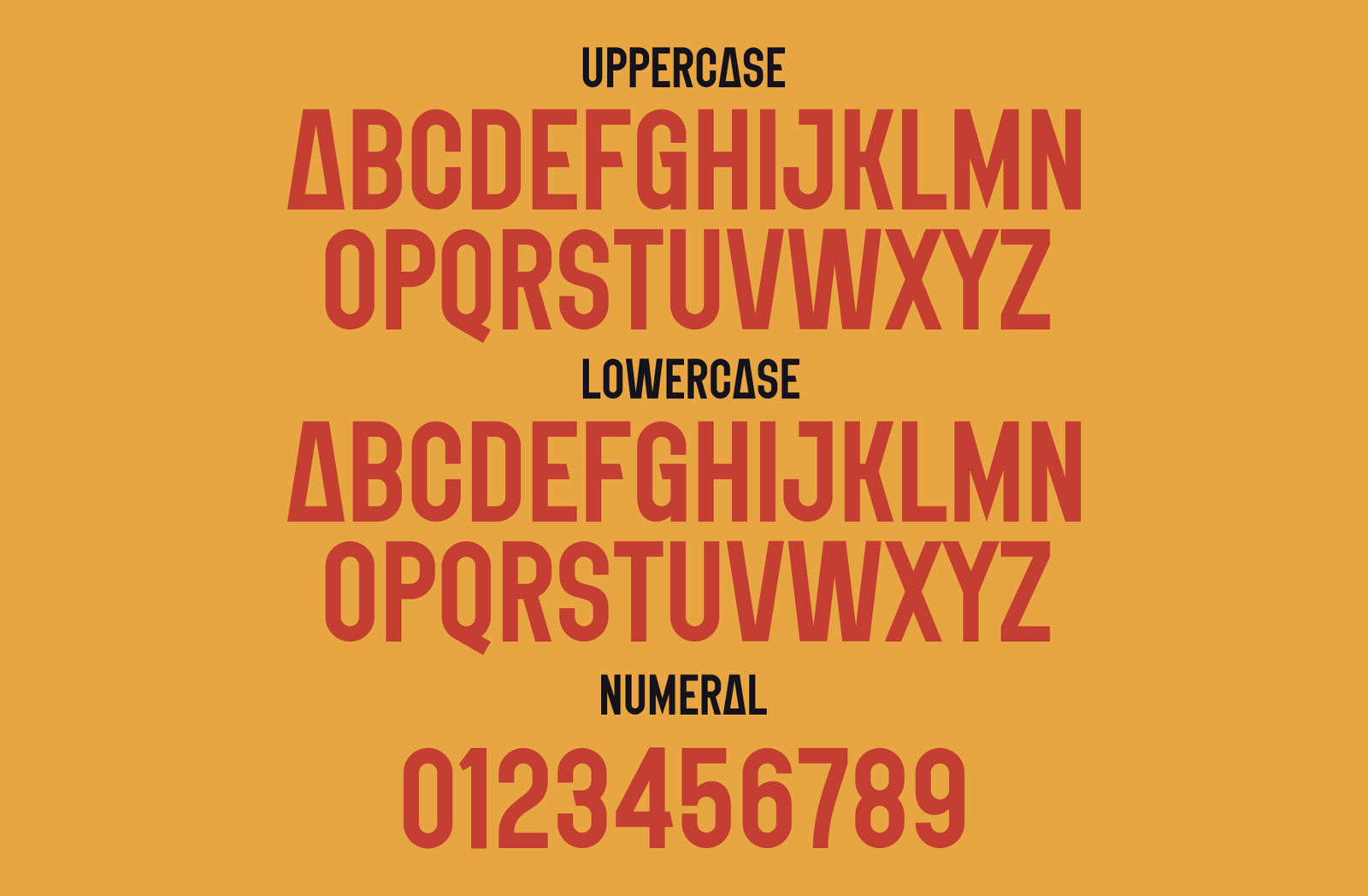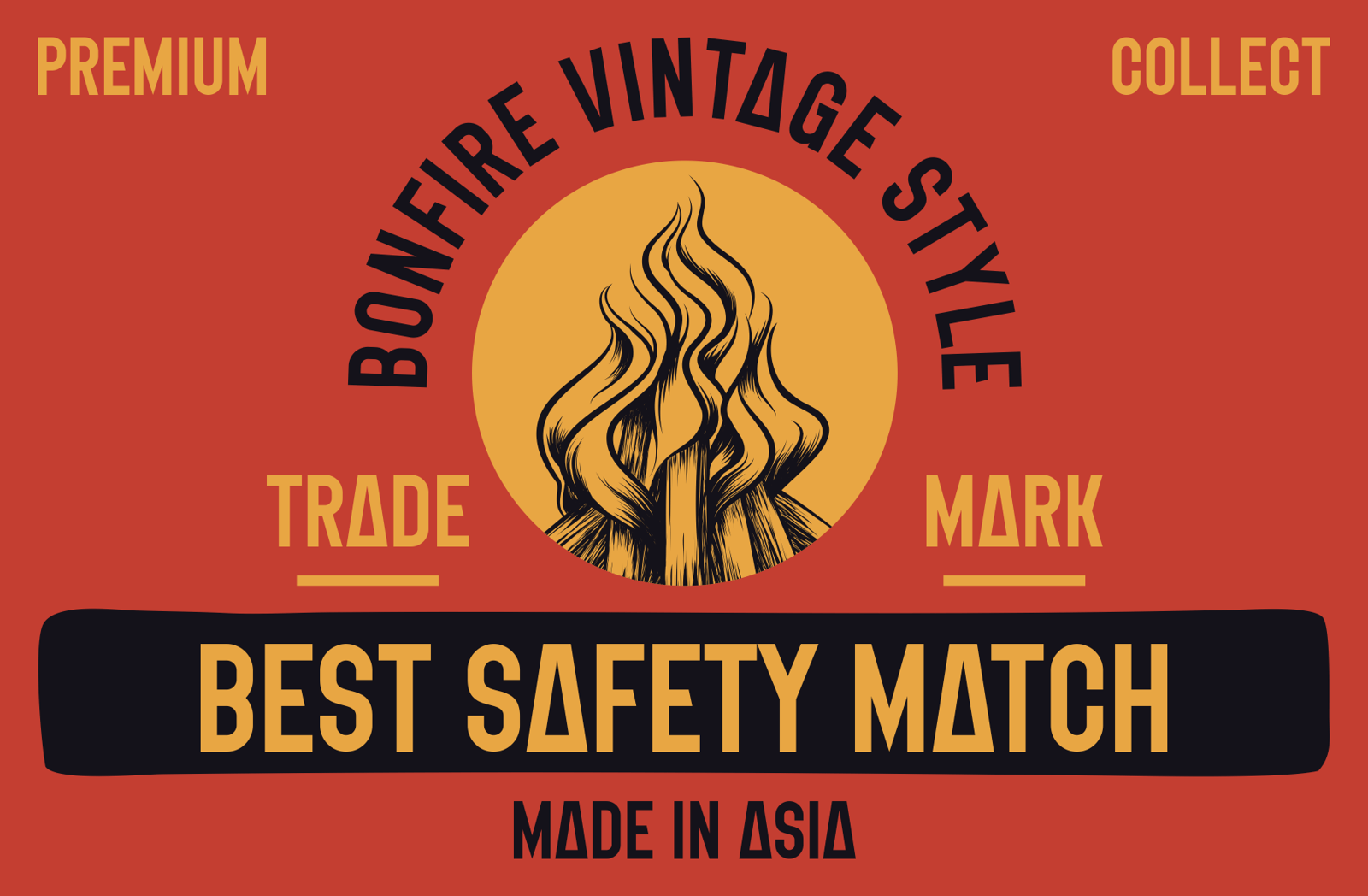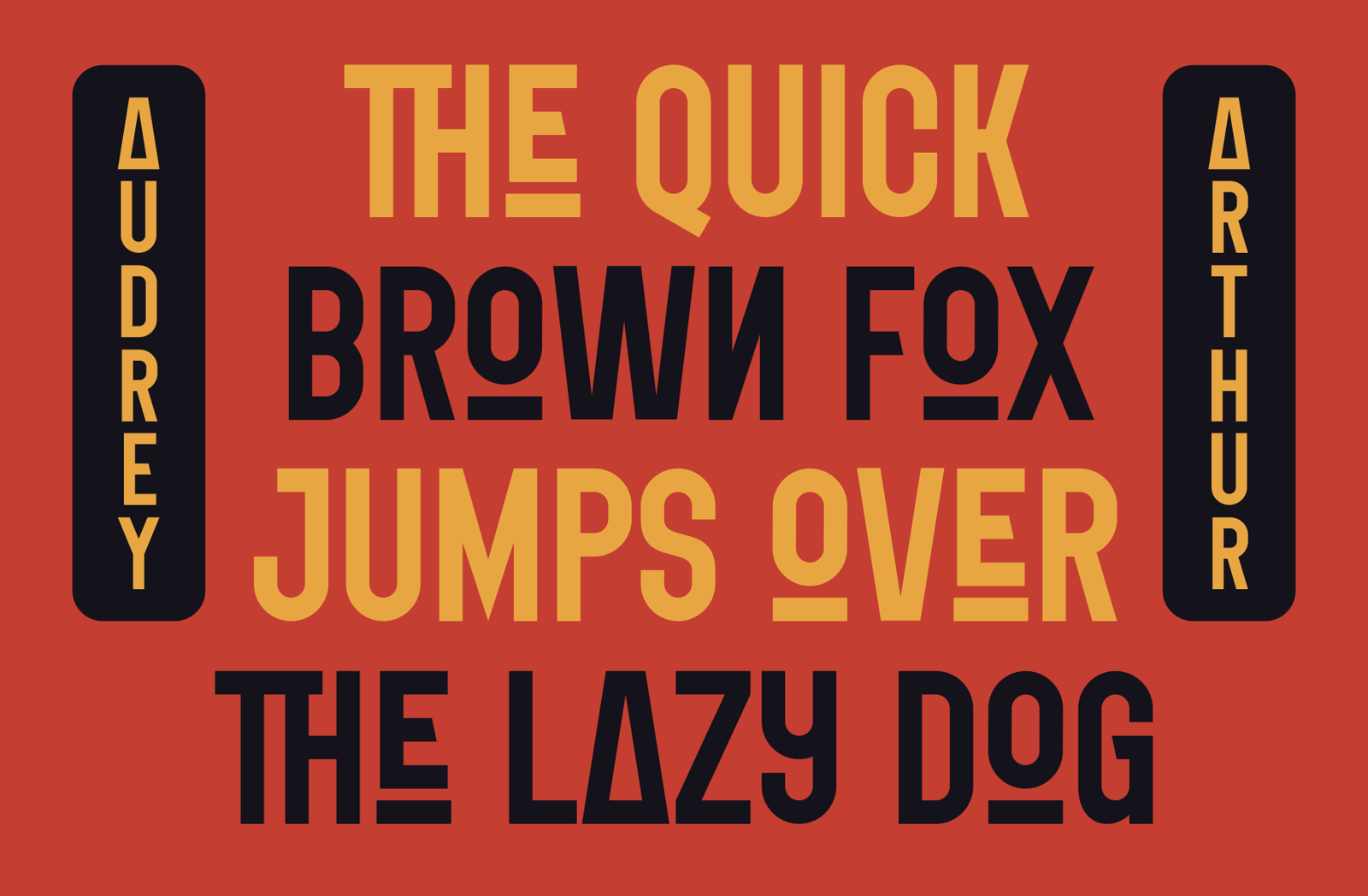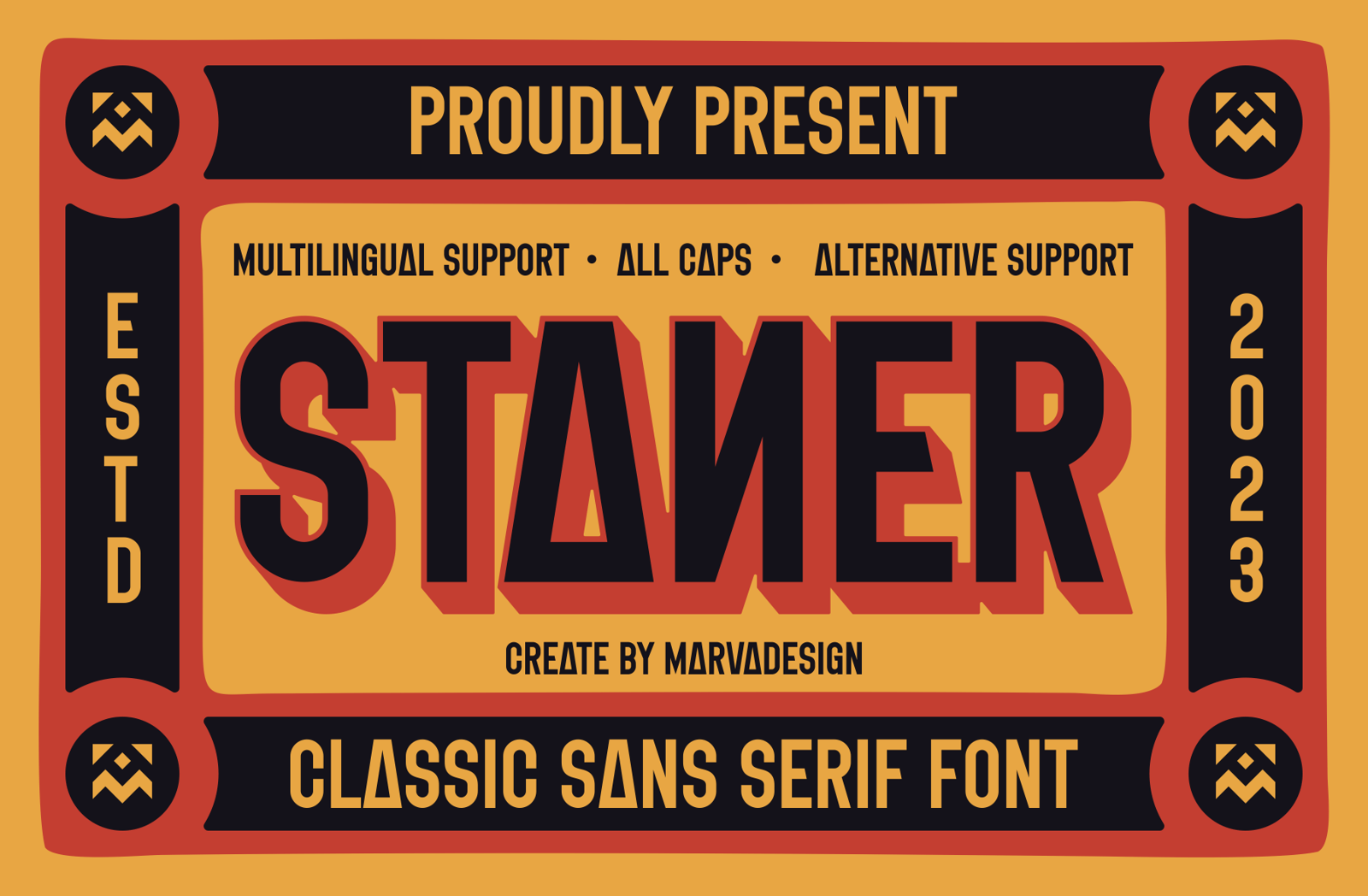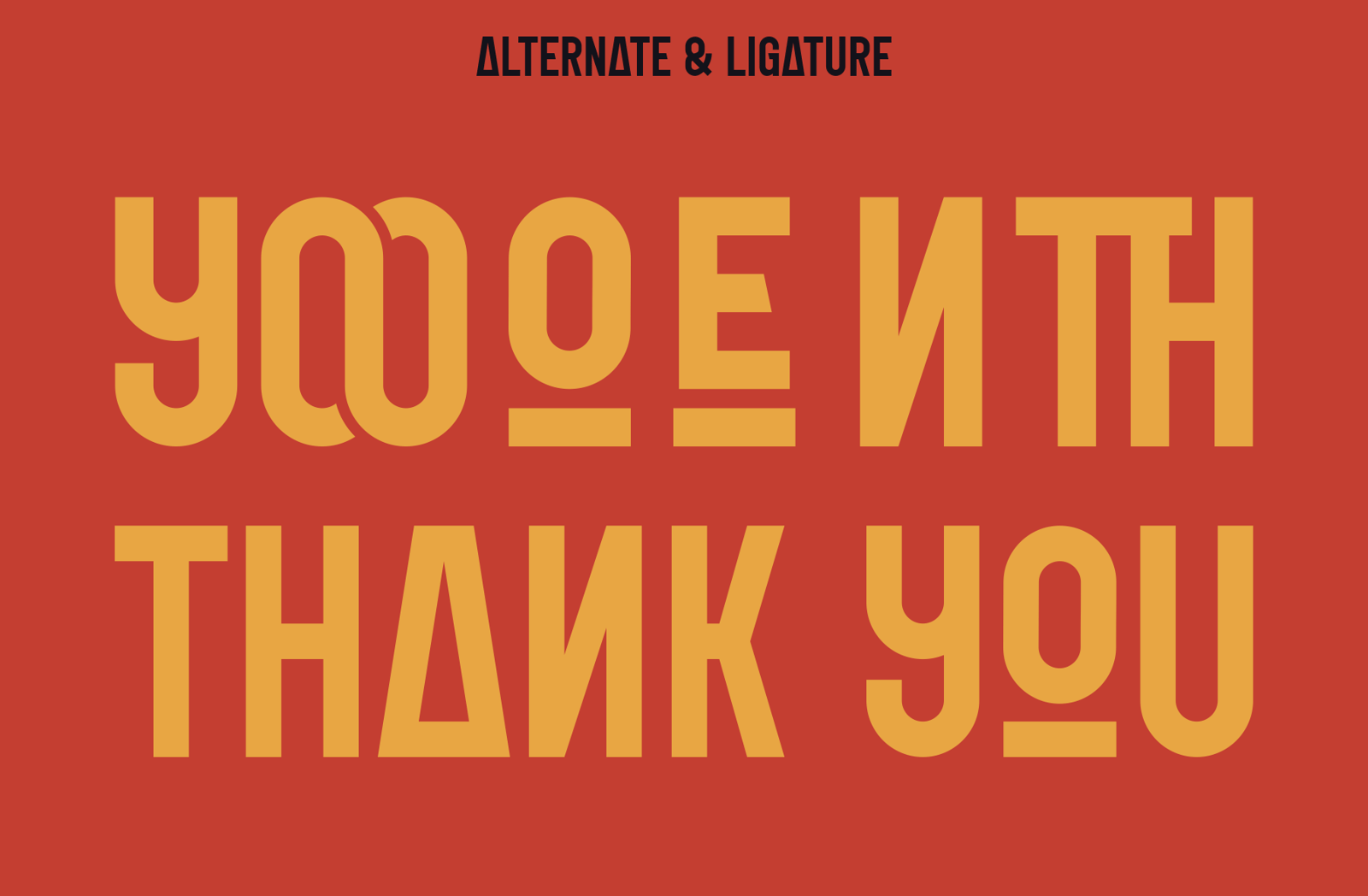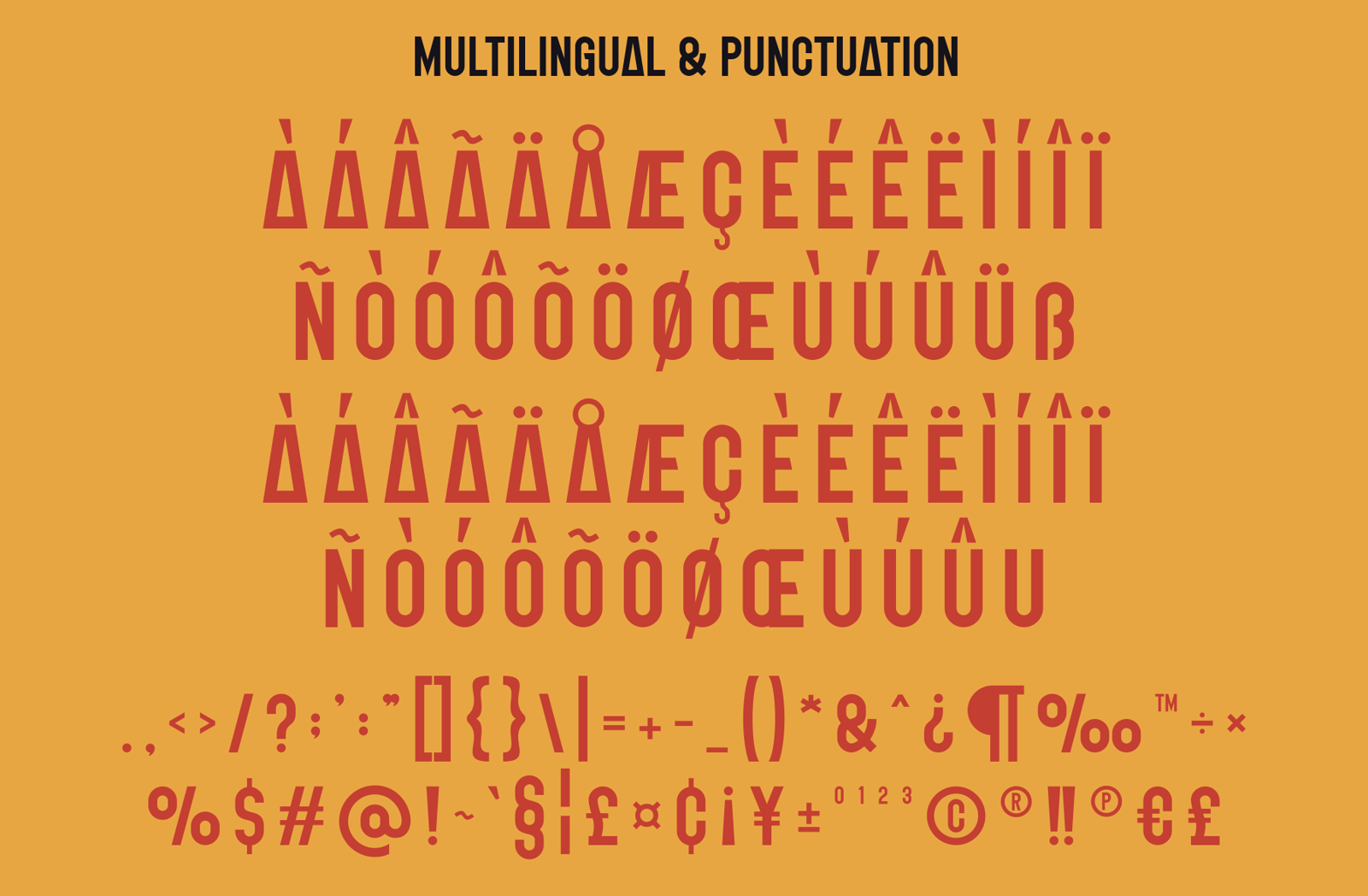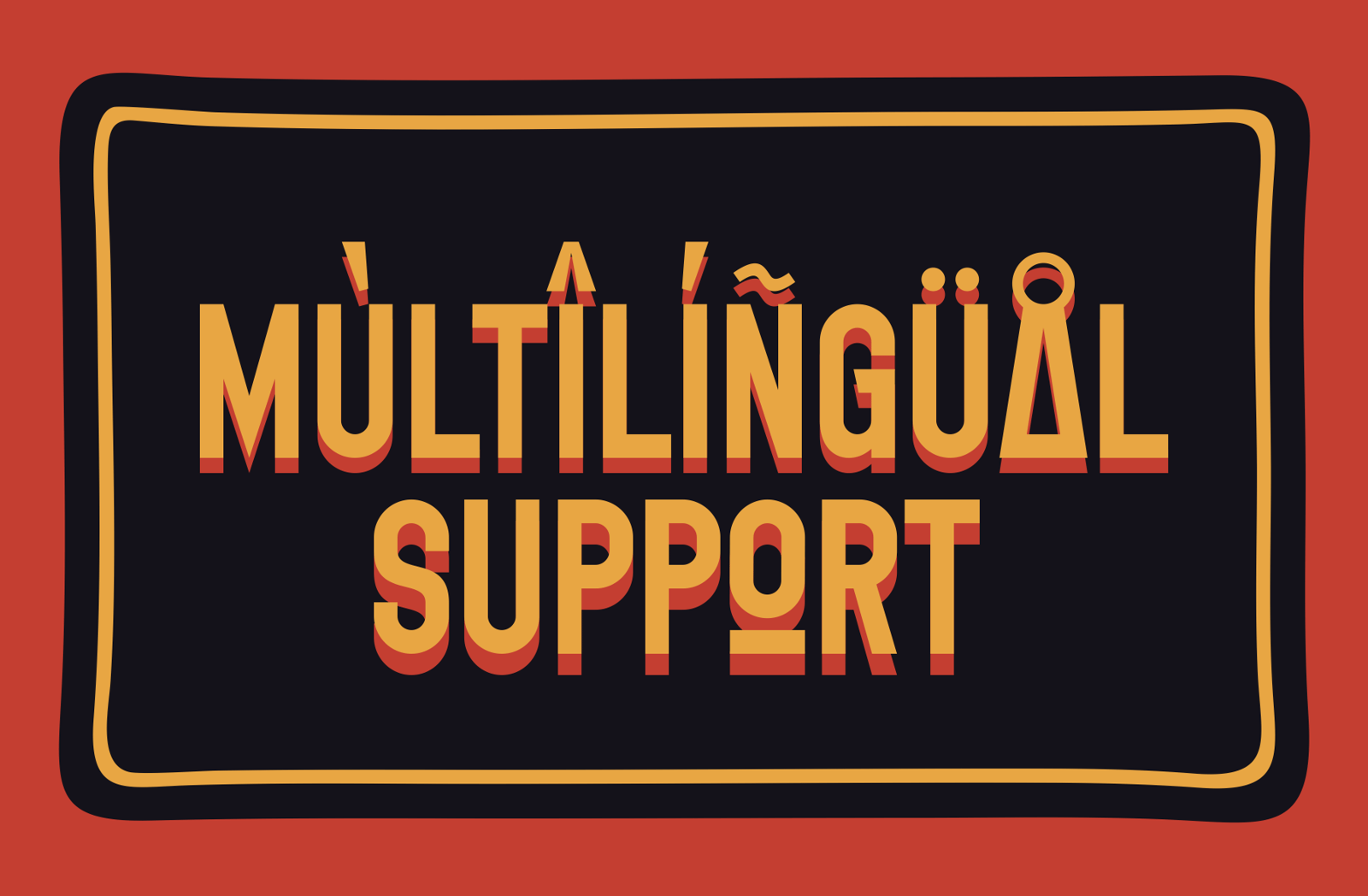
Staner Font
Introducing our new product **Staner Font** - Modern Font
**Staner Font** - Modern Font is a bold and authentic display font. The font is suitable for any branding project like logo, Template Design, Product and many more. outstanding in a wide range of contexts.
* Uppercase
* Lowercase
* Multilingual
* Ligature
* Alternate